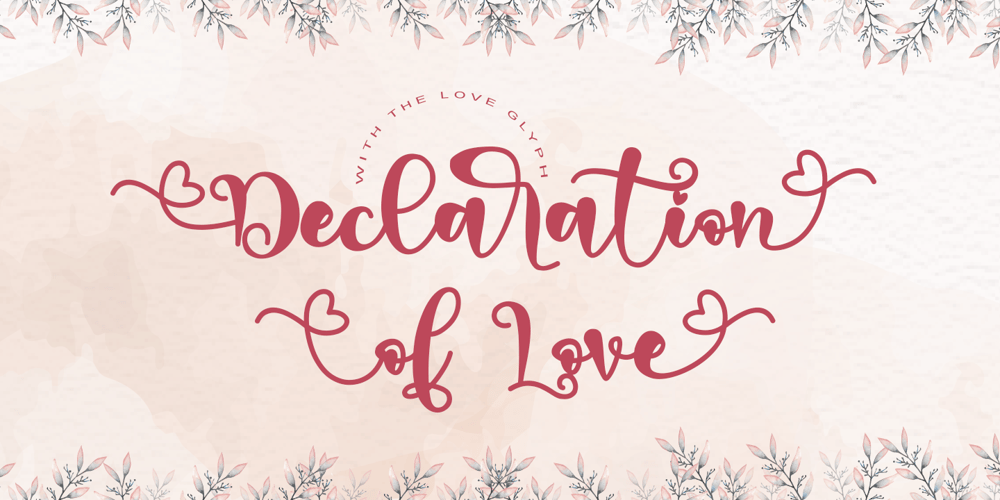
Declaration Of Love Font Family was designed by Thomas Aradea and published by Letterara. Declaration Of Love contains 1 styles and family package options. Declaration of love is a beautiful and flowing script font. It is PUA encoded which means you can access all of the glyphs and swashes with ease! It features a varying baseline, smooth lines, gorgeous glyphs, and stunning alternates. It maintains its classy calligraphic influences while feeling contemporary and fresh. Fall in love with its incredibly distinct and timeless style and use it to create spectacular designs!